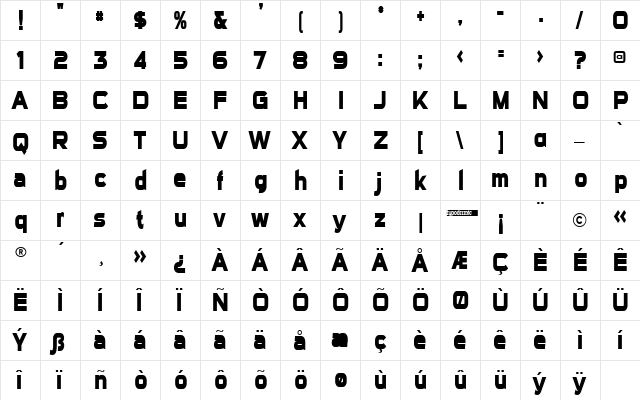
Sui Generis Condensed Bold Font Preview
Design Context for Sui Generis Condensed Typeface
Sui Generis Condensed is a composed and adaptable typeface that performs quietly and consistently across a wide range of design contexts. The heavy weight commands attention and anchors typographic hierarchies. The condensed width makes it efficient for tight spaces without sacrificing legibility.